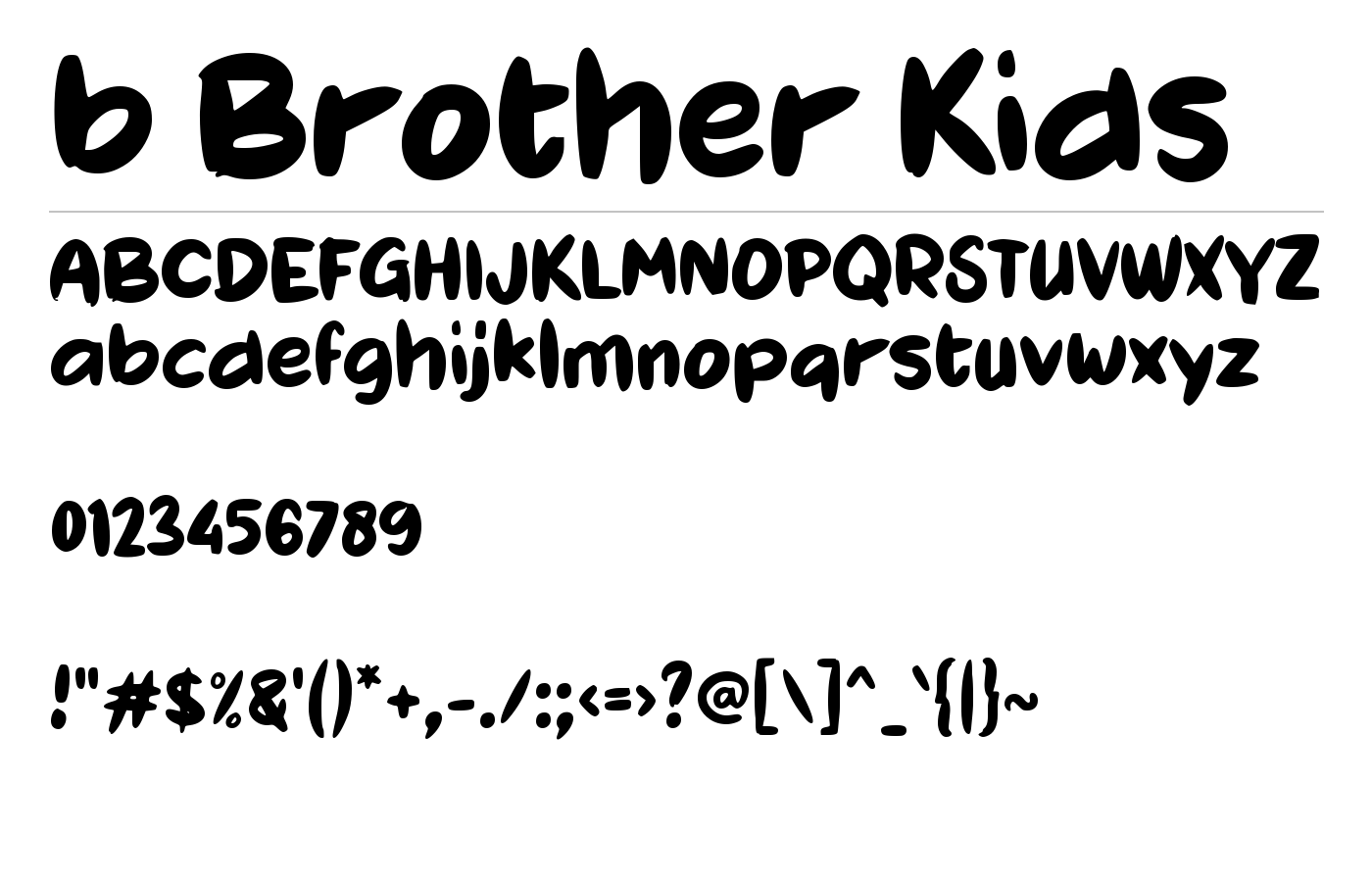
b Brother Kids is a playful, bold, and rounded sans serif font that beautifully captures a childlike, informal feel with its soft, hand-drawn style. Its friendly letterforms and balanced spacing make it perfect for children’s books, educational materials, and fun, approachable branding where warmth and simplicity are key. This font works well in large sizes for headlines or logos, bringing a joyful and inviting personality to any design.
b Brother Kids Font
About b Brother Kids Font